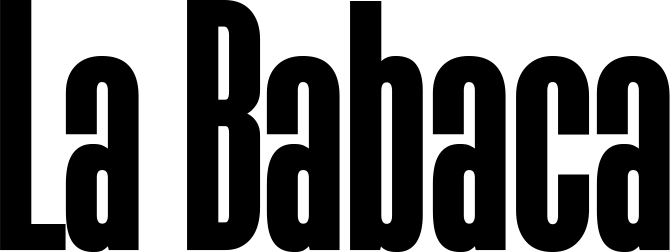
La Babaca Font
If you are interested in a casual and friendly context, then we suggest a sans-serif font. La Babaca is a modern-looking font that you can use for plenty of projects like the main context of a website, magazines, posters, and flyers.
This font comes with an extraordinary collection of characters containing both the uppercase and lowercase of the alphabets and punctuation marks, the only thing you won’t find is the numbers.
La Babaca es una tipografía black, sin serif y comprimida de formas geométricas muy simples, sin adornos, una fuente display sobria, que proporciona un gran ahorro de espacio para títulos grandes.
The babaca is a black typeface without serifs and compressed very simple geometric shapes, unadorned sober display font that provides a great space saver for big titles.
• Letras griegas
• Letras alternativas
• Greek characters
• Alternative characters